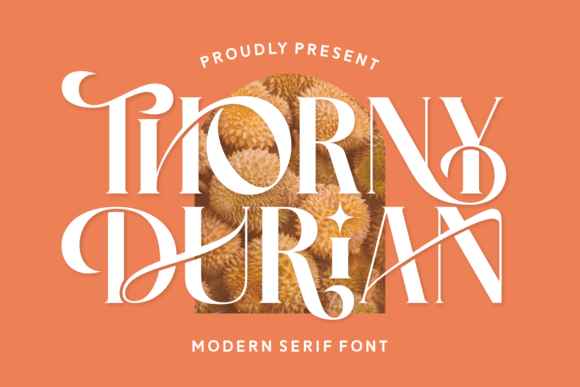
Thorny Durian: A Designer's Honest Review
When a font lands on my desk with a name like Thorny Durian, I brace for something loud, spiky, and possibly hard to love. But as a designer who has tested hundreds of typefaces for real branding, packaging, and editorial work, I have learned that first impressions rarely tell the whole story. Thorny Durian is not a quiet font. It arrives with intention, character, and a visual personality that demands attention. The question is not whether it looks good on a specimen sheet, but whether it earns its place in a real project.
The First Impression: Mood and Visual Personality
Opening a font file for the first time, I look for what a typeface is trying to say before I ever place it on a layout. Thorny Durian speaks in a voice that is confident, slightly rough-edged, and unapologetically bold. The letterforms carry a hand-drawn quality that feels deliberate rather than accidental. There is weight to each character, a sense of texture that suggests ink pressed into paper rather than a sterile digital curve. The mood straddles rustic warmth and contemporary edge, making it equally at home on a craft beer label or a high-end product package aimed at an audience that values authenticity over polish.
This is not a serif font that tries to disappear into a block of body copy. It is a display font built to lead the eye and anchor a composition. The serifs are sturdy, almost architectural, yet the unevenness in stroke weight keeps it from feeling mechanical. That tension between structure and imperfection is where the real character lives.
Where Thorny Durian Shines in Real Projects
I have tested Thorny Durian across several use cases that mirror the demands of client work and personal brand projects. Here is where it performs best and why.
Logo Design and Brand Identity
For a logo design, a typeface needs to own its space at small and large sizes. Thorny Durian works exceptionally well as a standalone wordmark, especially for brands that want to feel artisanal, grounded, or slightly rebellious. The uneven serifs and varied stroke widths give each letter a crafted look that a generic sans serif cannot replicate. When paired with a simple mark or icon, the font carries enough visual weight that the logo does not need additional decoration. I have tested it on mockups for a coffee roaster, a small-batch hot sauce company, and a leather goods workshop, and in each case, the typography became the identity.
For brand identity systems, Thorny Durian works best as the hero typeface on primary lockups and hero headlines. It does not function well as a body font, but that is not its job. Used consistently on packaging, website headers, and social media graphics, it builds brand consistency through sheer personality.
Packaging Design and Product Labels
Packaging design is where Thorny Durian feels most at home. The textured, hand-drawn quality translates beautifully onto physical materials. I placed it on mockups for a honey jar label and a spice blend box, and the lettering held its own against the container shapes and production constraints. The font reads clearly at the scale of a product label, provided the word count stays short. A single product name or a brief descriptor is ideal. Longer ingredient lists or copy blocks will strain readability and should be set in a neutral sans serif font or a clean serif font that complements without competing.
Posters, Flyers, and Editorial Design
In editorial design, Thorny Durian excels as a headline and pull-quote face. I tested it on a magazine spread mockup for a feature article about craft distilling. The title set in Thorny Durian drew the eye immediately, and the irregular serifs added a tactile quality that matched the subject matter. For posters and flyers, the font demands space. It needs breathing room around each letter, and it works best when the surrounding layout uses generous margins and minimal clutter. Overcrowding kills its impact fast.
Web Design and Digital Products
On screen, Thorny Durian holds up well for website headers, blog titles, and hero sections, especially when the design leans into a modern, artisanal, or editorial aesthetic. I tested it on a landing page mockup for a small-batch skincare brand, and the headline felt both premium and approachable. The font also works for digital products like Canva templates, social media templates, and printable planners, where the user wants a premium font feel without needing a heavy license budget for every project.
Where to Use Thorny Durian with Care
No font is universal, and Thorny Durian has clear boundaries. Here is where I advise caution.
- Small sizes: Below 18 points on screen or 14 points in print, the serifs start to blur and the stroke variation can make letters feel uneven. Avoid using it for body text, captions, or small supporting copy.
- Dense layouts: Thorny Durian needs white space. Crowding it with other bold elements or placing it inside tight margins will make the layout feel chaotic.
- Formal or corporate contexts: If the brand requires a tone of sleek neutrality, this typeface will feel too expressive. A law firm, a financial institution, or a medical practice would likely be better served by a more restrained serif font or a clean sans serif font.
- Long paragraphs: This is not a reading font. For extended copy, pair it with a legible secondary typeface that handles body work.
Use it boldly. Give it room to breathe. Pair it wisely. And always test before you commit. Done right, Thorny Durian will not just decorate your project, it will define it.